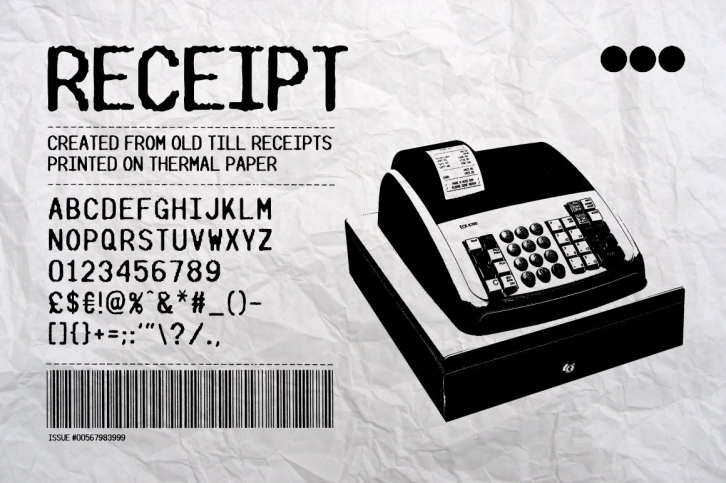
RECEIPT is a quirky font created from old till receipts.
Most modern till receipts are printed digitally using thermochromic paper which is a cheap process that produces irregular and inconsistent results.
I wanted to create a font based on these imperfections.